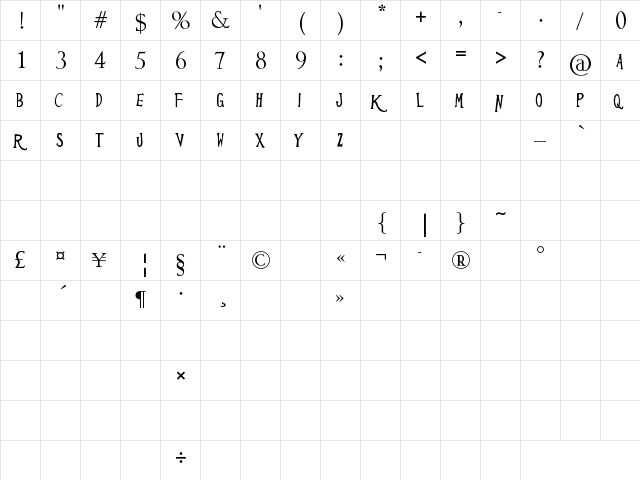
Computer Is Personal Regular
Design Context for Computer Is Personal Typeface
Computer Is Personal takes a measured approach to typography — its balanced proportions and neutral character make it a reliable workhorse for both digital and print work.